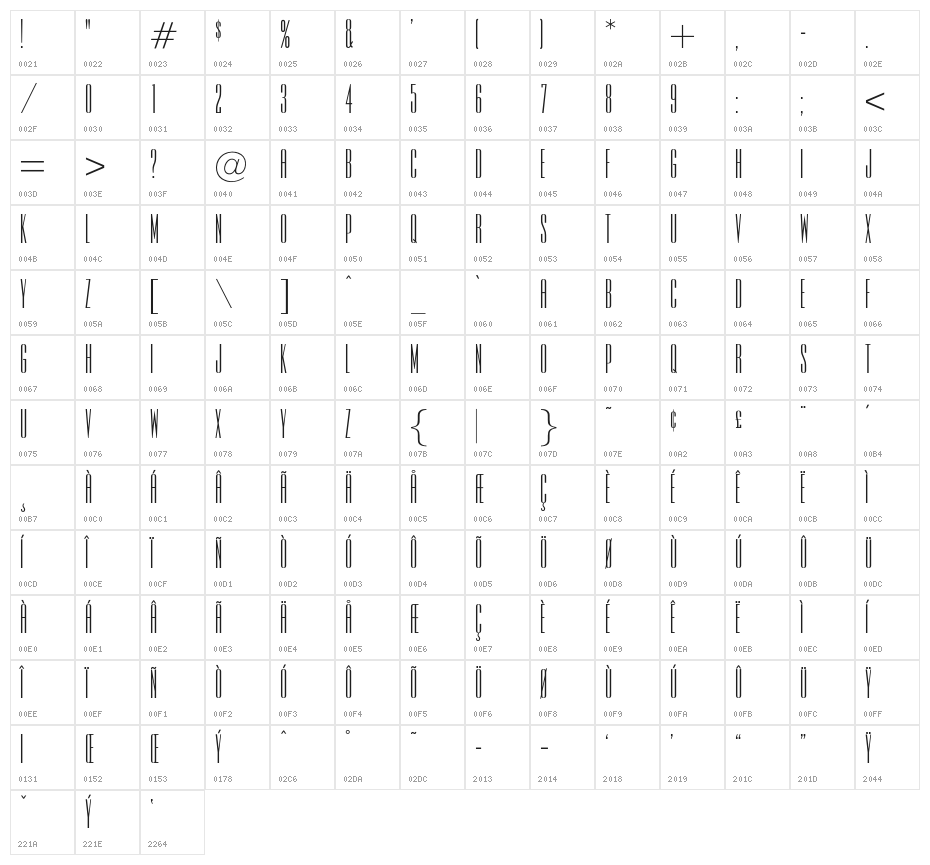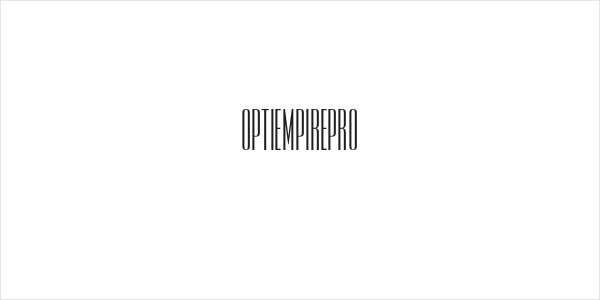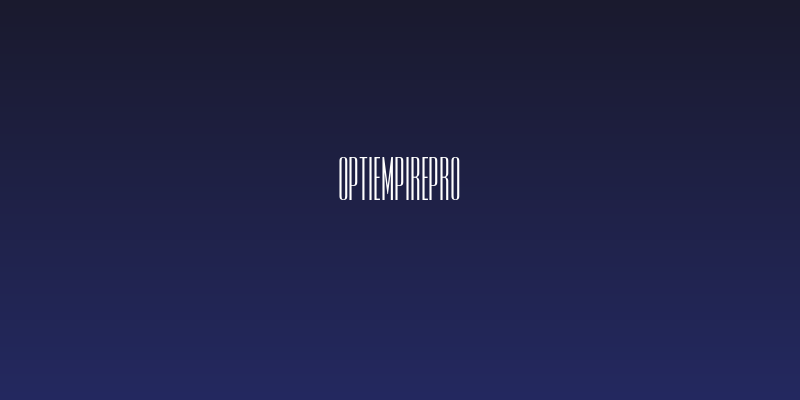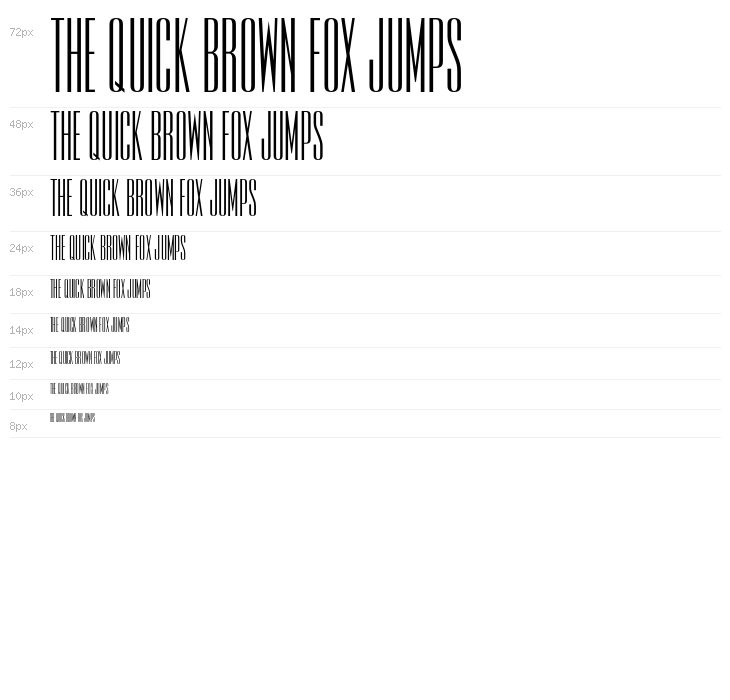
OPTIEmpirePro Font
OPTIEmpirePro Description
This font features a tall, narrow design with elongated characters that create a striking and elegant appearance. The uppercase letters are particularly elongated, giving a sense of grandeur and sophistication. The font maintains a consistent stroke width throughout, contributing to its modern and sleek look. The numerals and special characters are designed to match the overall aesthetic, ensuring a cohesive appearance across all text elements. This font's unique style makes it suitable for projects that require a bold and impactful visual statement.
Proposed ProjectsIdeal for luxury branding, fashion magazines, high-end product packaging, and event invitations.